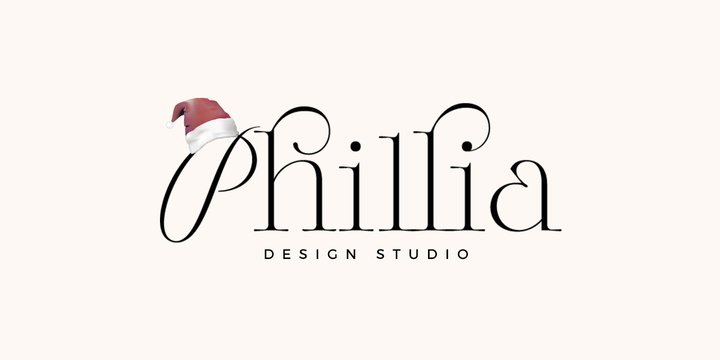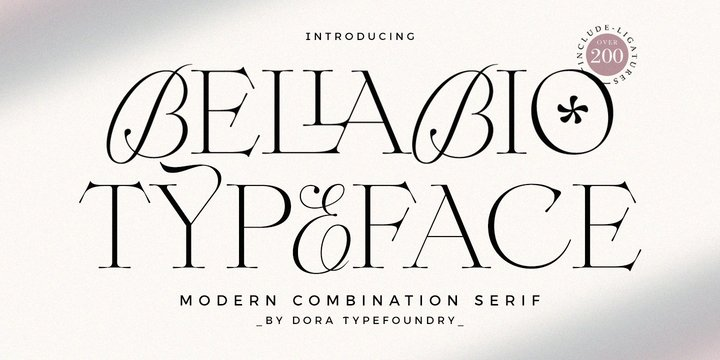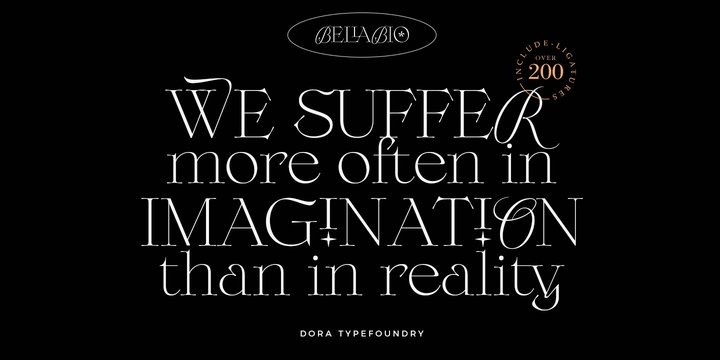
Bellabio Font
Bellabio FontIntroducing, Bellabio is an elegant modern Serif Font that gives a romantic feel to every curve that has smooth edges and a trendy look to your designs. This font also has a very fancy uppercase alternative to combine. Bellabio has 200+ Ligatures included, it’s really helpful in creating your project titles: like fashion, magazine, logo, branding, photography, invitations, wedding invitations, quotes, blog headers , posters, advertisements, postcards, books, websites, etc.